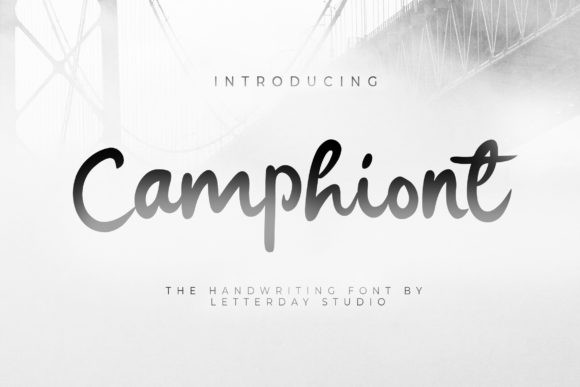
Camphiont Font
Camphiont is a cursive and organic script font. This versatile script font has a wide spectrum of applications ranging from greeting cards to headlines and is guaranteed to add a stylish feel to your next project.